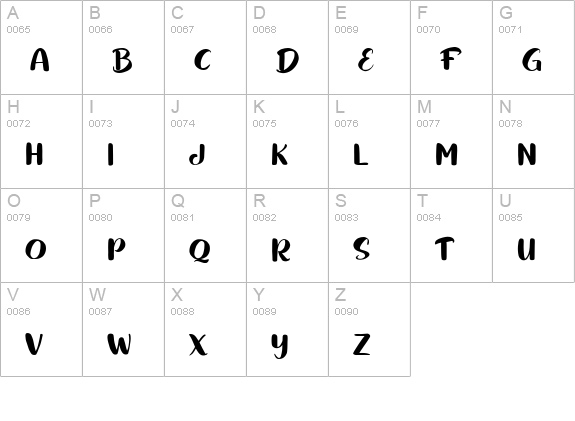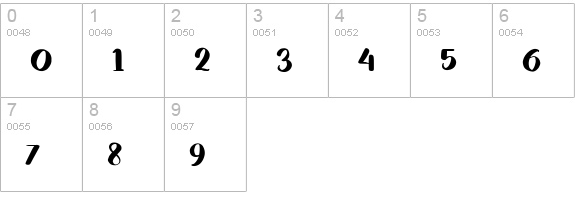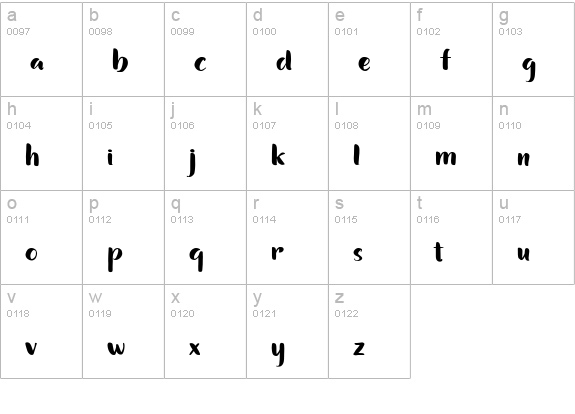
Bundhers Font Details
Bundhers is a demo font in the Dingbats > Kids category, designed by patria_typestudio. It has been downloaded 115 times and is available for Windows, Mac and Linux.
Bundhers font is a sophisticated and modern typeface that exudes elegance and style. With its sleek lines and subtle curves, Bundhers is perfect for adding a touch of sophistication to any design project. This versatile font is ideal for use in branding, advertising, or any creative endeavor that calls for a touch of class.